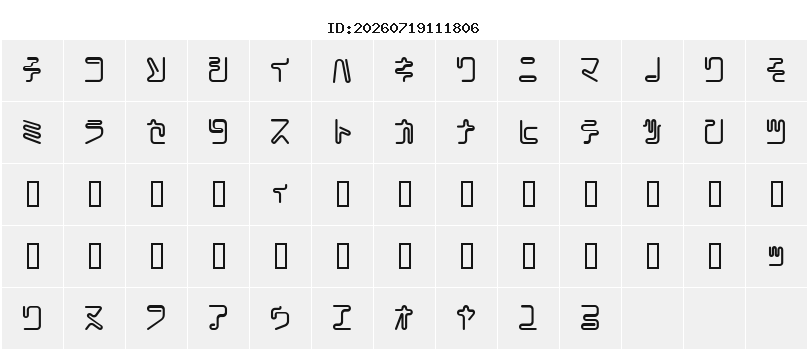
Coil Preview
• Font Name: Coil
• Font Style: Ktb
• Full Font Name: Coil Ktb
About Coil.ttf
Coil.ttf is a modern, elegant sans-serif font designed for ultimate readability and visual harmony. Perfect for branding, headlines, web design, and print materials.